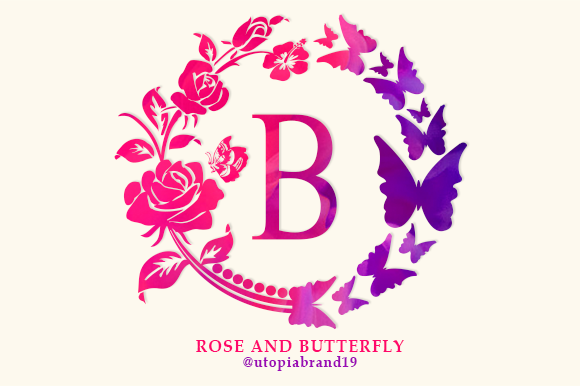
Unleash your creativity with the enchanting Rose and Butterfly Monogram Font. A decorative masterpiece that embodies the essence of charm and elegance. Step into a world where your imagination takes flight and your designs come to life with a touch of delicate beauty.
This font family is more than just a collection of letters; it's an artistic journey that invites you to explore the realms of creativity. Its intricate design captures the essence of timeless elegance, blending the allure of roses with the grace of butterflies. Each character is a work of art, meticulously crafted to evoke emotions and captivate your audience.
With Rose and Butterfly Monogram, you can transform ordinary words into captivating statements. Design enchanting invitations that exude a touch of romance and grace. Create personalized stationary art that reflects your unique style and leaves a lasting impression. Elevate your social media presence with eye-catching posts that showcase your creativity. Craft heartfelt greeting cards that convey warmth and affection, making every occasion truly special.
Unleash the power of Rose and Butterfly Monogram and embark on a creative odyssey where your imagination knows no bounds. Discover the endless possibilities that await you with this enchanting font family.